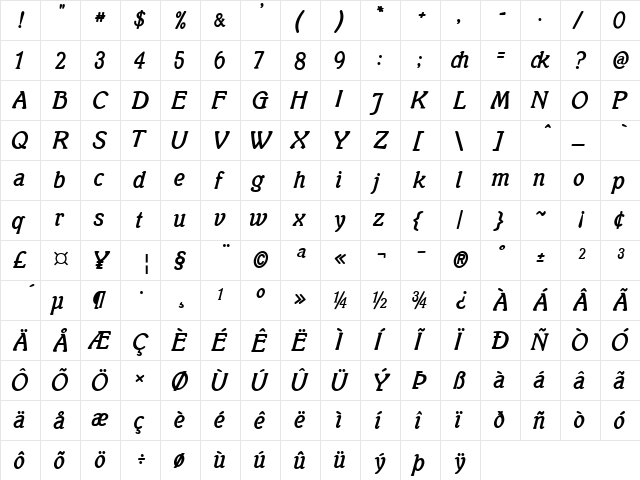
Mutter Krause Halbfett Bold
Design Context for Mutter Krause Halbfett Typeface
Mutter Krause Halbfett offers clean, dependable letterforms without strong stylistic allegiance, making it a practical choice for designers who need flexibility. Its bold stroke weight gives it real presence on the page.